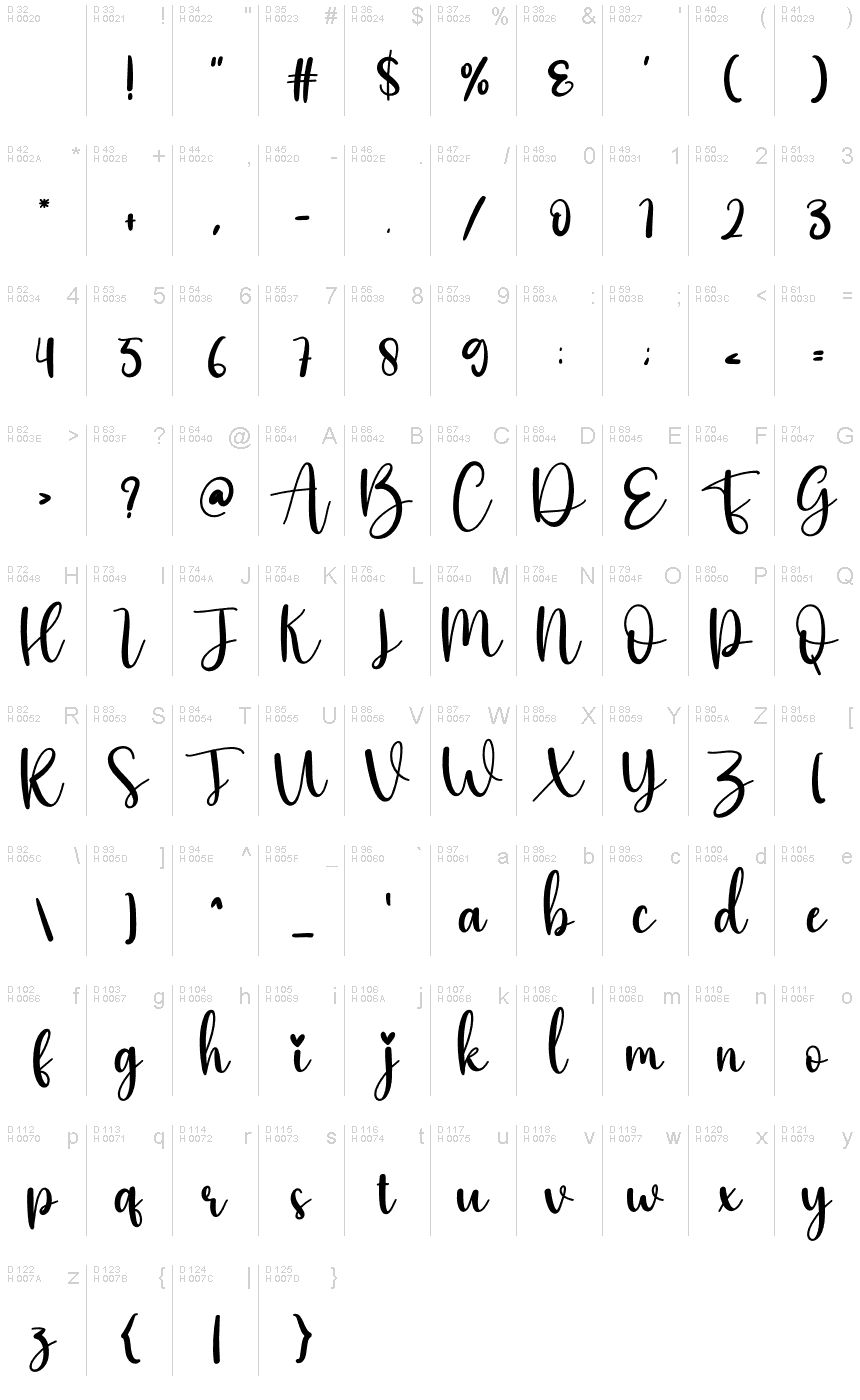
Anybaby
Anybaby, a beautiful handwritten font by Scratchones, brings an elegant and personal touch to your projects.
With its delicate curves and graceful strokes, this font adds a sense of sophistication to wedding invitations, greeting cards, and personalized stationery. Its versatility shines through in branding materials for boutique businesses, fashion magazines, and lifestyle blogs. Anybaby's charm is well-suited for children's books illustrations, adding a whimsical feel to every page.
Embrace the beauty of handwritten typography with Anybaby - where creativity meets elegance.
With its delicate curves and graceful strokes, this font adds a sense of sophistication to wedding invitations, greeting cards, and personalized stationery. Its versatility shines through in branding materials for boutique businesses, fashion magazines, and lifestyle blogs. Anybaby's charm is well-suited for children's books illustrations, adding a whimsical feel to every page.
Embrace the beauty of handwritten typography with Anybaby - where creativity meets elegance.